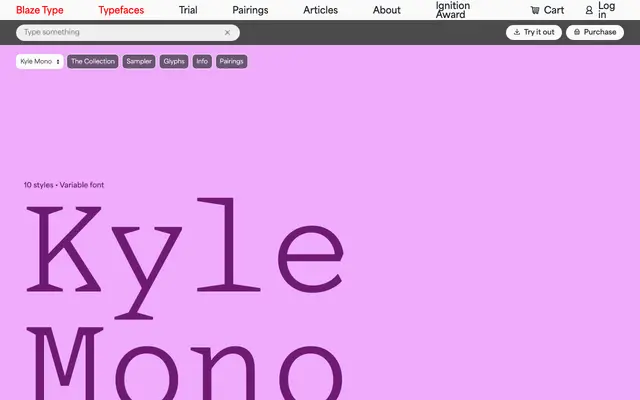
Kyle Mono
Blaze Type · Alexander Rütten, Olivia Wood · 2024
A monospaced serif with sharp triangular serifs that shift toward slab-like forms at heavier weights, designed by Alexander Rütten and Olivia Wood as a sibling to the proportional Kyle family.
Released in 2024, the family runs across five weights from ExtraLight to Bold with matching italics, all in a single variable file. The triangular serifs that define the letterforms grow more assertive as weight increases, giving the family a character that changes noticeably across the range. With over 820 glyphs covering Latin European languages including Eastern and Central European support, it suits coding environments as readily as editorial display work.
A monospaced typeface with uniform character widths throughout, featuring sharp triangular serifs that thicken toward slab-like forms at heavier weights, placing it firmly in the monospace serif category.